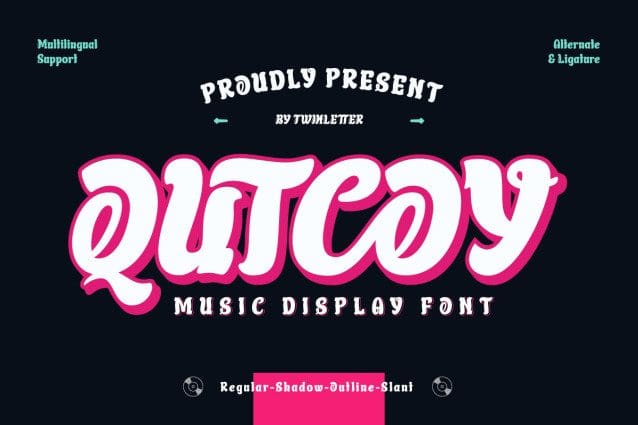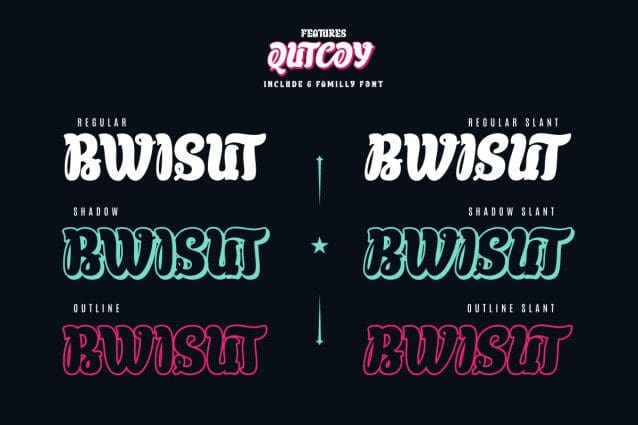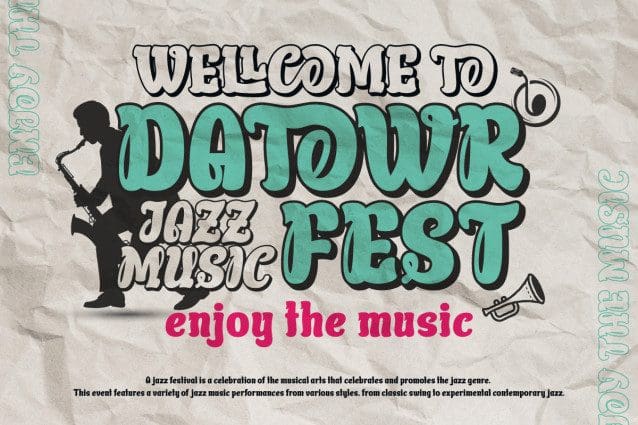
Qutcoy Display Font
Qutcoy Display Font, like an orchestra that combines different instruments, Qutcoy has much more to offer. This font seems to bring the melody to the surface by stepping into Outline. Bold contours add extra dimension and are an invaluable choice for a striking look.
Digging deeper, Qutcoy Display Font presents the Shadow style. Like stage lights highlighting each character, these shadows add drama to your design, creating a stunning visual effect.
Qutcoy Display Font is a typographic symphony that brings the inspiration and beauty of music into your designs. With a wide selection of styles, this font is ready to become part of your unforgettable visual story.